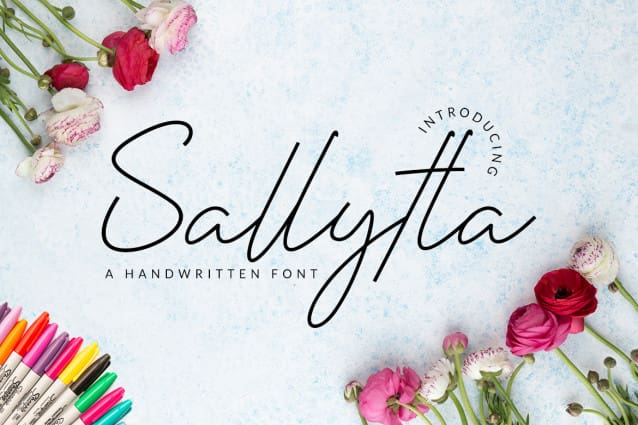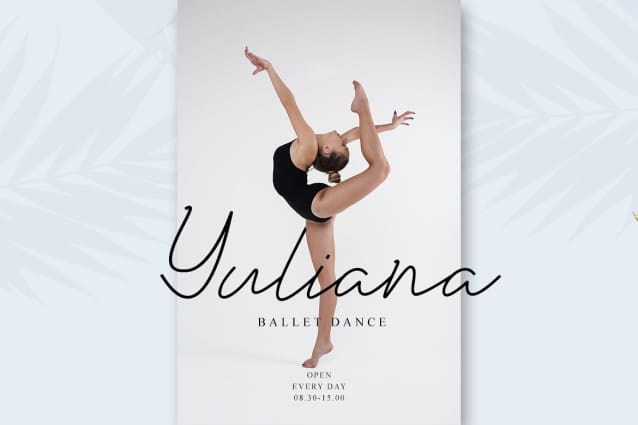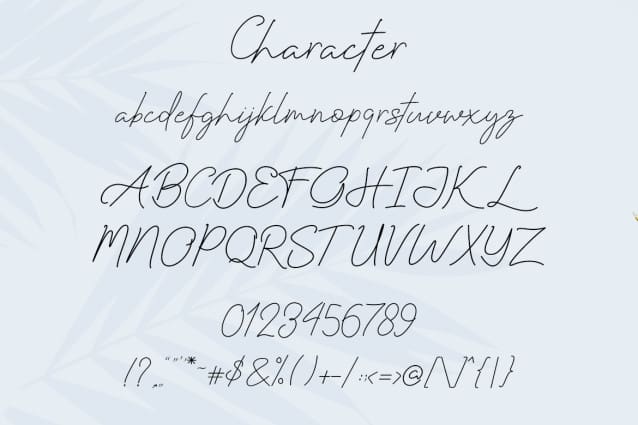
Sallytta Handwritten Natural Font
Sallytta Handwritten Natural Font is a natural & modern handwritten font. I’ts Perfect for logos, invitations, stationery, wedding designs, social media posts, advertisements, product packaging, product designs, labels, photography, watermarks, special events or whatever. These fonts include: Sallytta OTF-TTF, Ligatures, and alternates